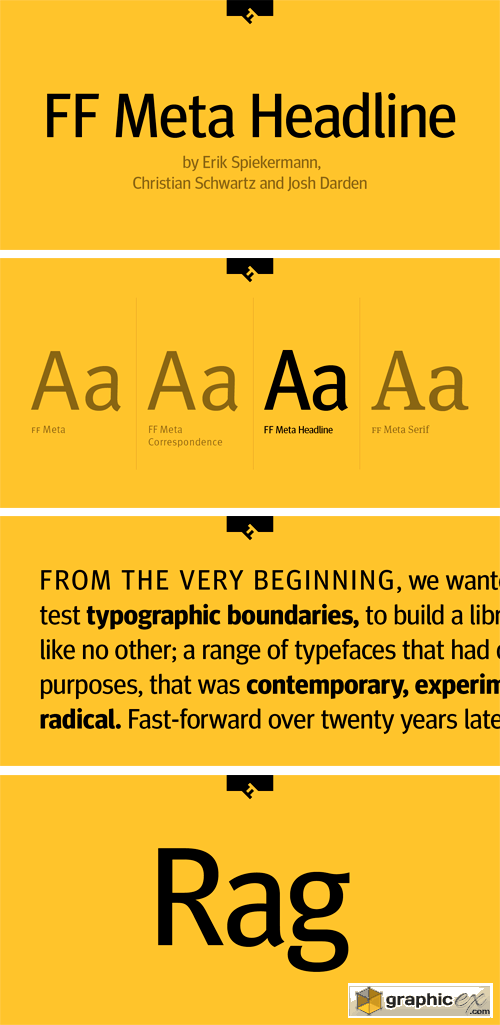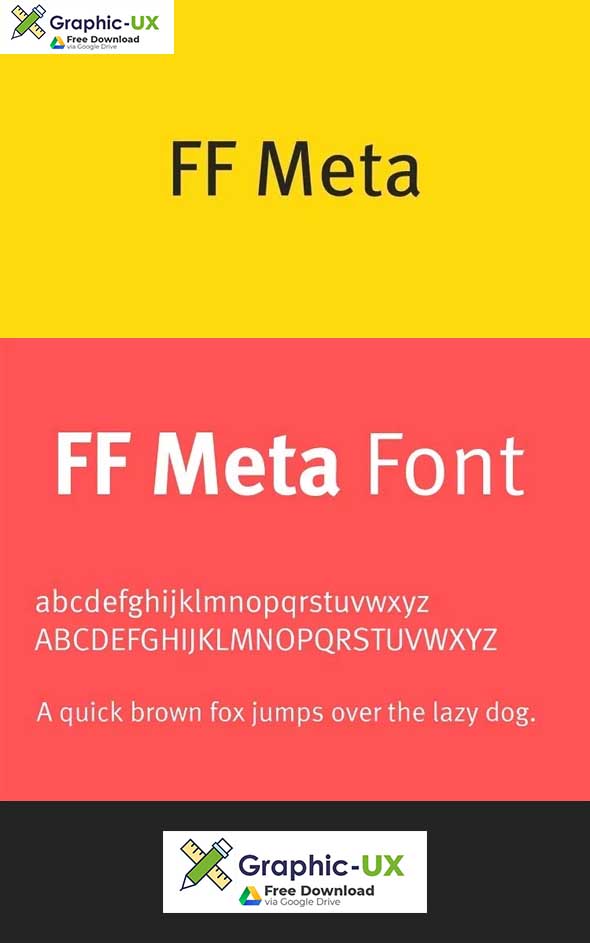
Ff Meta Font Family Download. Download typeface ff meta serif free. According to spiekermann, this font contains bold, light and heavy styles.”, which he determined “boring and bland”.
Ff meta font free download. The family that became ff meta was first called pt55, an economical typeface made for easy reading at small sizes created for the west german post office in 1985. If you really want ff meta® condensed and you want to truly own it the legal and safe way, then click here to.
In 2011, Ff Meta Was Added To The Moma Architecture And Design Collection In New York.
Ff meta serif font download ff meta serif was designed by christian schwartz, erik spiekermann, ralph du carrois, kris sowersby, botio nikoltchev and published by fontfont. A text typeface by erik spiekermann and christian schwartz. This fontfont is a member of the ff meta super family, which also includes.
German Type Designer Erik Spiekermann, Created This Sans Fontfont Between 1991 And 2010.
In 2011, ff meta was added to the moma architecture and design collection in new york. According to spiekermann, ff meta was intended to be a “complete antithesis of helvetica”, which he found “boring and bland”. Ff meta variable are font files which are featuring two axis and have a preset instance from hairline to black and condensed to roman.
Available for e book use. According to spiekermann, ff meta becomes intended to be a “complete antithesis of helvetica”, which he located “dull and bland”. When you've used all of your pageviews, return to fonts.com for more.